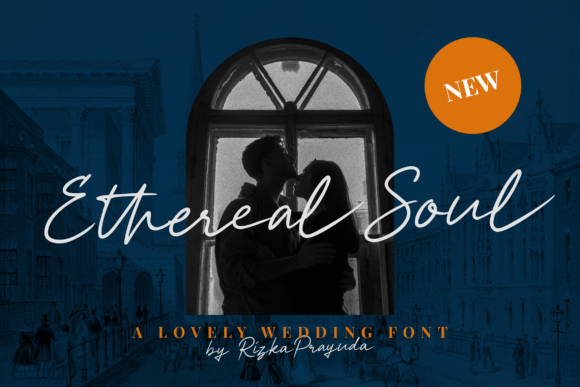
Journey into the realm of romance and elegance with Ethereal Soul Font, the script font that captures the essence of love and heartfelt emotions. Inspired by the beauty of weddings and crafted with a natural, delicate touch, Ethereal Soul is the perfect choice for expressing your heartfelt sentiments through enchanting designs.
Indulge in the beauty of this dainty and soft font, meticulously designed to evoke a sense of timeless elegance. With its flowing curves and graceful swashes, Ethereal Soul adds a touch of charm and sophistication to any project, whether it's wedding invitations, branding projects, packaging, or any creative endeavor that calls for a touch of romance.
Dive into the world of Ethereal Soul and discover a font that speaks to the heart. Its PUA encoding grants you effortless access to a treasure trove of glyphs and swashes, empowering you to unleash your creativity and craft designs that resonate with emotion and allure.
Unveil the enchanting possibilities of Ethereal Soul Font, the ultimate font for love poems, heartfelt letters, and any project that seeks to capture the essence of romance. Let your words dance across the page with grace and elegance, leaving an everlasting impression on the hearts of your readers.